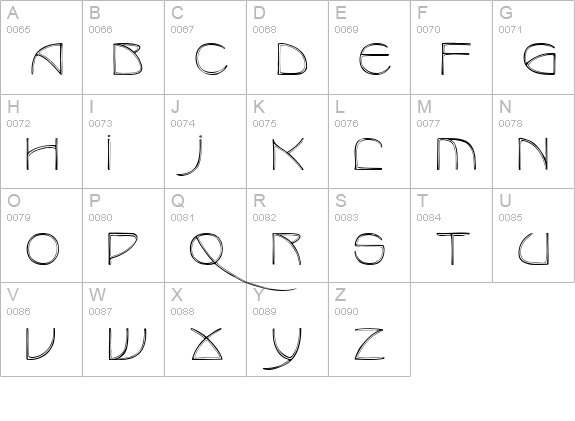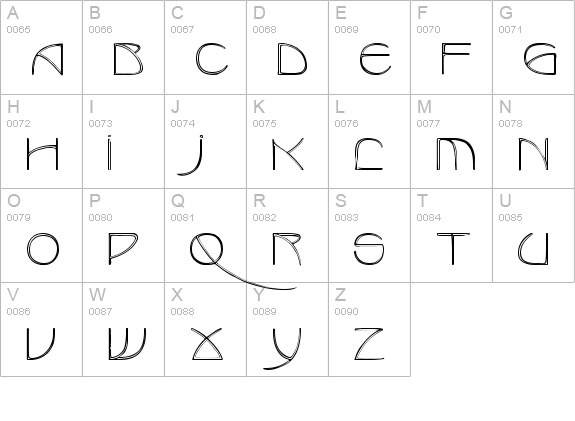
BenjaminCaps Medium Font Details
BenjaminCaps Medium is a balanced, medium-weight variant in the BenjaminCaps typeface family \xE2\x80\x94 well suited to sub-headlines, navigation, and balanced editorial work.
BenjaminCaps Medium font strikes the perfect balance between modern sophistication and classic elegance. With its clean lines and distinctive letterforms, this font exudes a sense of professionalism and refinement. The medium weight provides a versatile option for a wide range of design projects, from branding and advertising to editorial layouts and packaging. What sets BenjaminCaps Medium font apart is not just its aesthetic appeal, but also its accessibility. This font is available for free download at FontsMarket.com, making it a valuable resource for designers, artists, and creatives looking to elevate their work without breaking the bank. Whether you're crafting a sleek logo, designing a stylish poster, or creating a polished website, BenjaminCaps Medium font is sure to lend a touch of sophistication to your projects. Unlock your creativity and elevate your designs with this timeless typeface, freely available for download now.